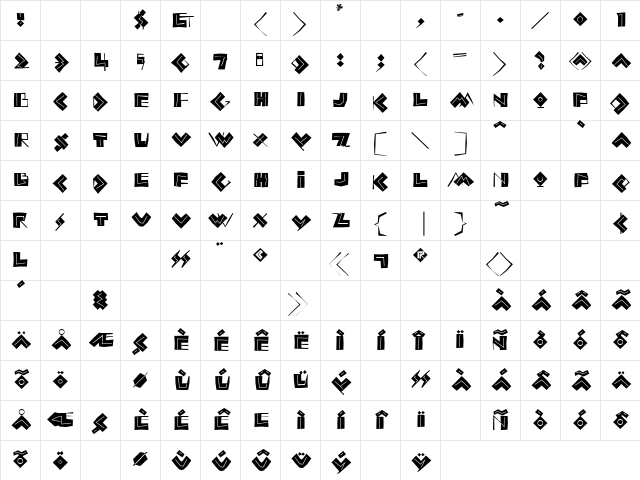
Complete AIIdeoRoughInline Regular glyph index. Displaying only characters natively supported by AIIdeoRoughInline Regular font.
AIIdeoRoughInline embraces imperfection - its rough, textured character adds raw authenticity to designs that want to feel lived-in and unconventional.
Pro Tip: Use AIIdeoRoughInline at larger sizes where the texture and irregularity of each letterform can be clearly seen - it loses its character at small sizes.